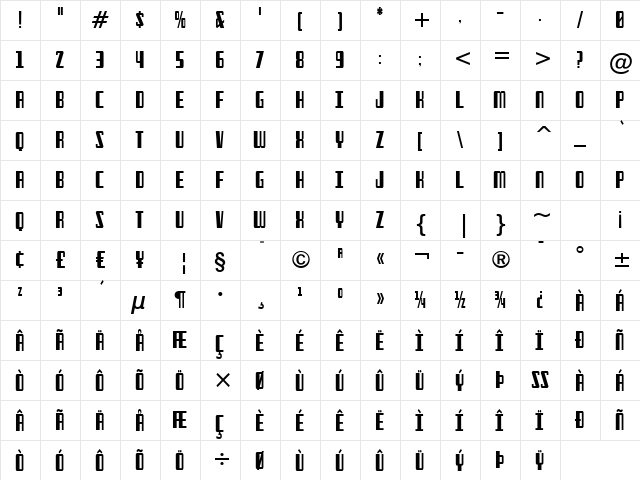
Freezer BTN Condensed Regular
Design Context for Freezer BTN Condensed Typeface
Freezer BTN Condensed is a composed and adaptable typeface that performs quietly and consistently across a wide range of design contexts. The condensed width makes it efficient for tight spaces without sacrificing legibility.